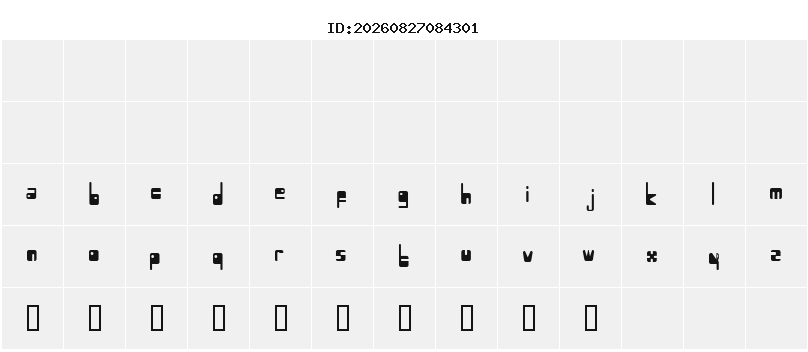
3代呼吸英文-黑圆润 Preview
• Font Name: 3代呼吸英文-黑圆润
• Font ID: Atmosphere
• Full Font Name: 3代呼吸英文-黑圆润
• PostScript Name: Atmosphere
• Character Count: 59
About 3代呼吸英文-黑圆润.ttf
3代呼吸英文-黑圆润.ttf is a modern, elegant sans-serif font designed for ultimate readability and visual harmony. Perfect for branding, headlines, web design, and print materials.